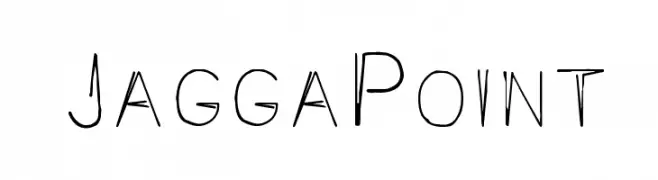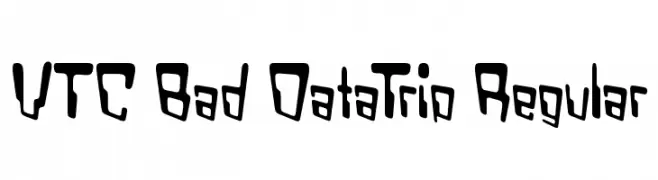
( Fonts by David A. Mason )
A playful, hand-drawn font with irregular, dynamic letterforms.
( Fonts by or from www.graffitifonts.net )
A bold, abstract font with an artistic, hand-drawn style.
( Fonts by www.tepidmonkey.net )
A casual, handwritten font with a personal and informal style.
( Fonts by Digital Graphics Labs - www.digitalgraphiclabs.com )
A bold, playful font with rounded, bubbly characters perfect for fun and nostalgic designs.
( Fonts by pOPdOG fONTS - Dimitris Kolyris - popdog_fonts.tripod.com OFF SITE )
A bold, hand-drawn font with an expressive, distressed style.
( Fonts by Graham Meade - GemFonts )
A playful, hand-drawn font with irregular strokes and artistic flair.
( Fonts by www.houseoflime.com )
A Halloween-themed decorative font with playful and spooky elements.